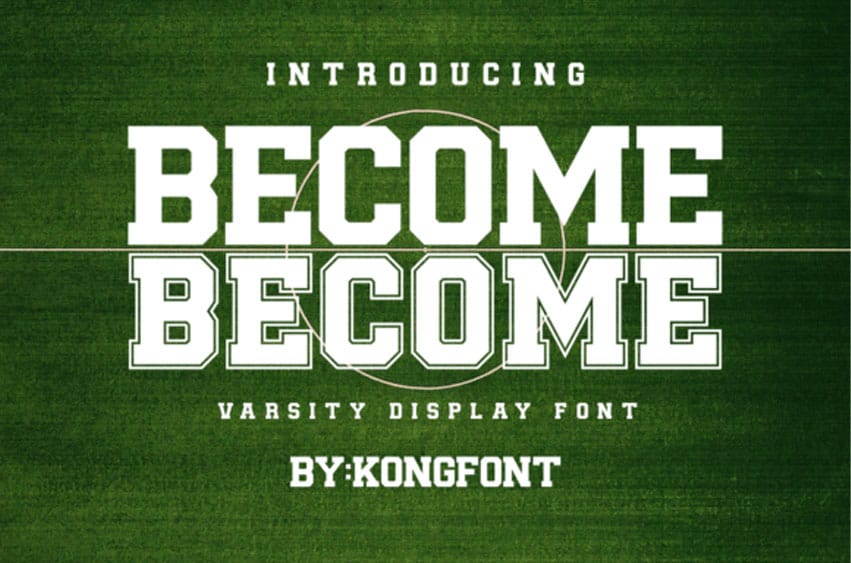
Become Font Display Font is a bold and stylish typeface perfect for creative projects like branding, logos, posters, packaging, and social media designs. Its modern and elegant touch adds uniqueness and professionalism to any design.